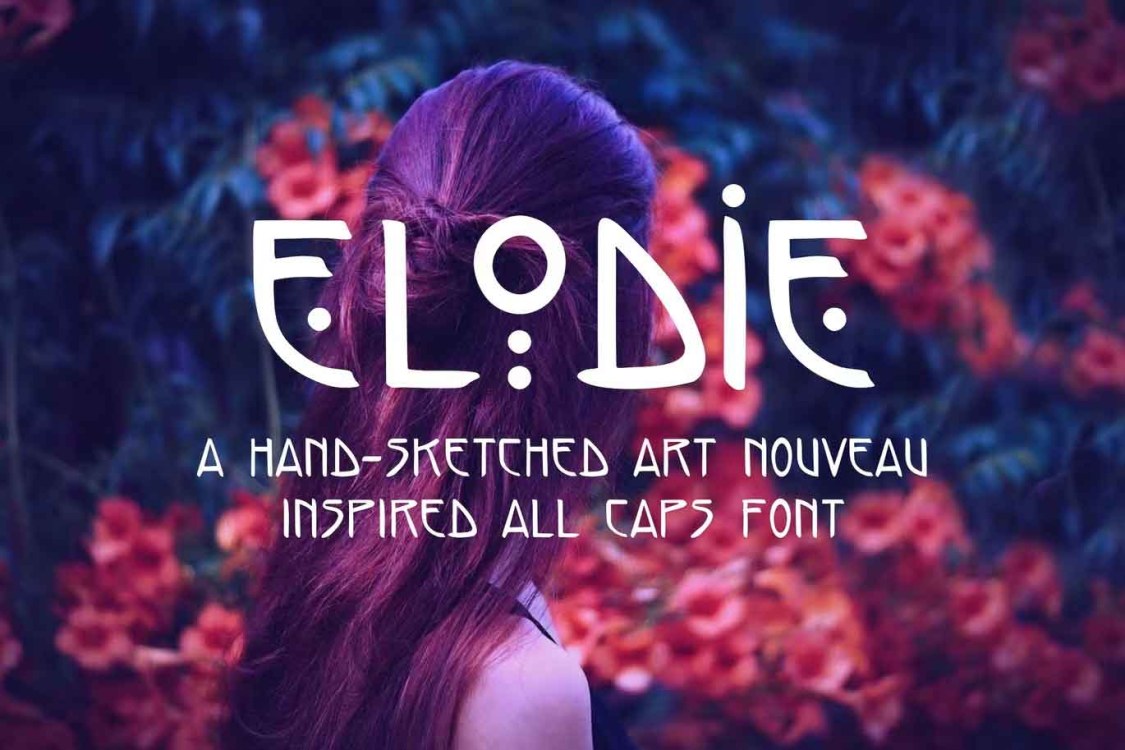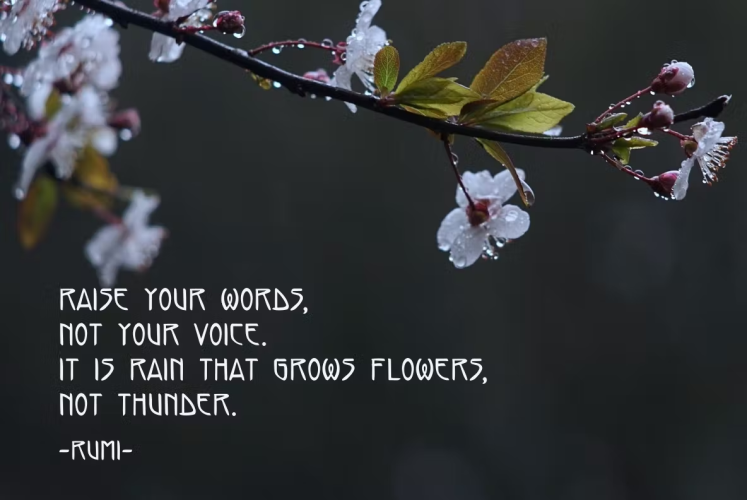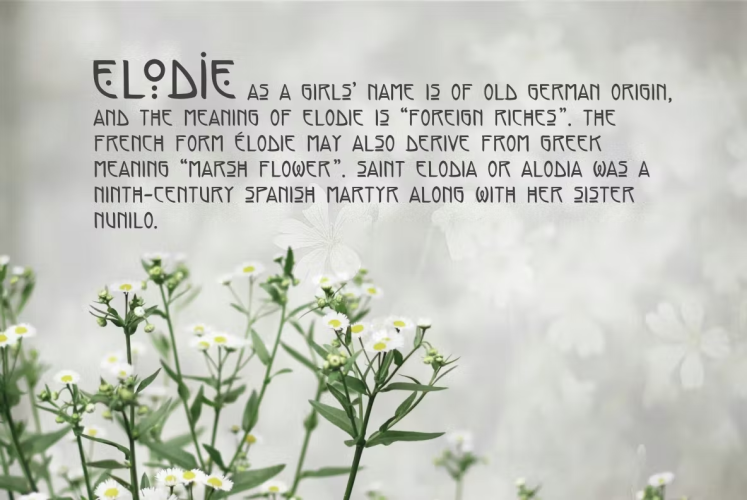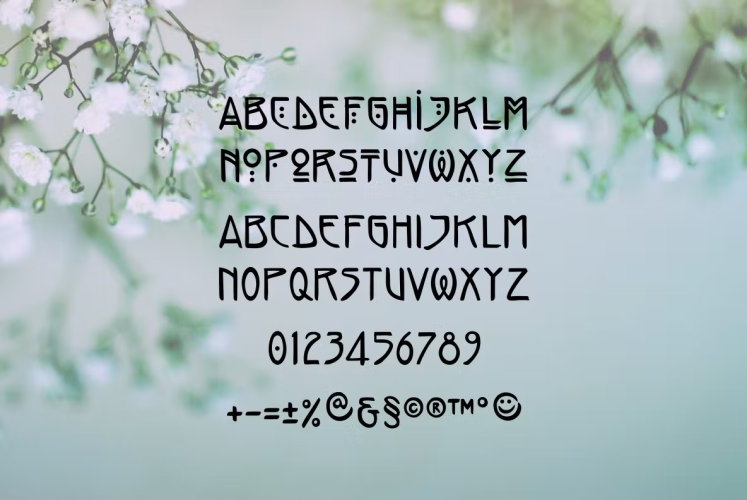
Elodie Hand Sketched Art Nouveau Font
Elodie is an all caps font with some extra quirky characters. It was hand drawn with a brush pen.
Elodie is designed for titles, short quotes, product names etc. Use lower-case letters for regular text, and then add a some special quirks to your writing by using the characters in the upper-case section.
Multilingual support is included for Western European, Central and Eastern European languages.
Elodie Hand Sketched Art Nouveau Font is a Sans Serif Fonts font that brings a professional and versatile look to your projects. Elodie is an all caps font with some extra quirky characters.